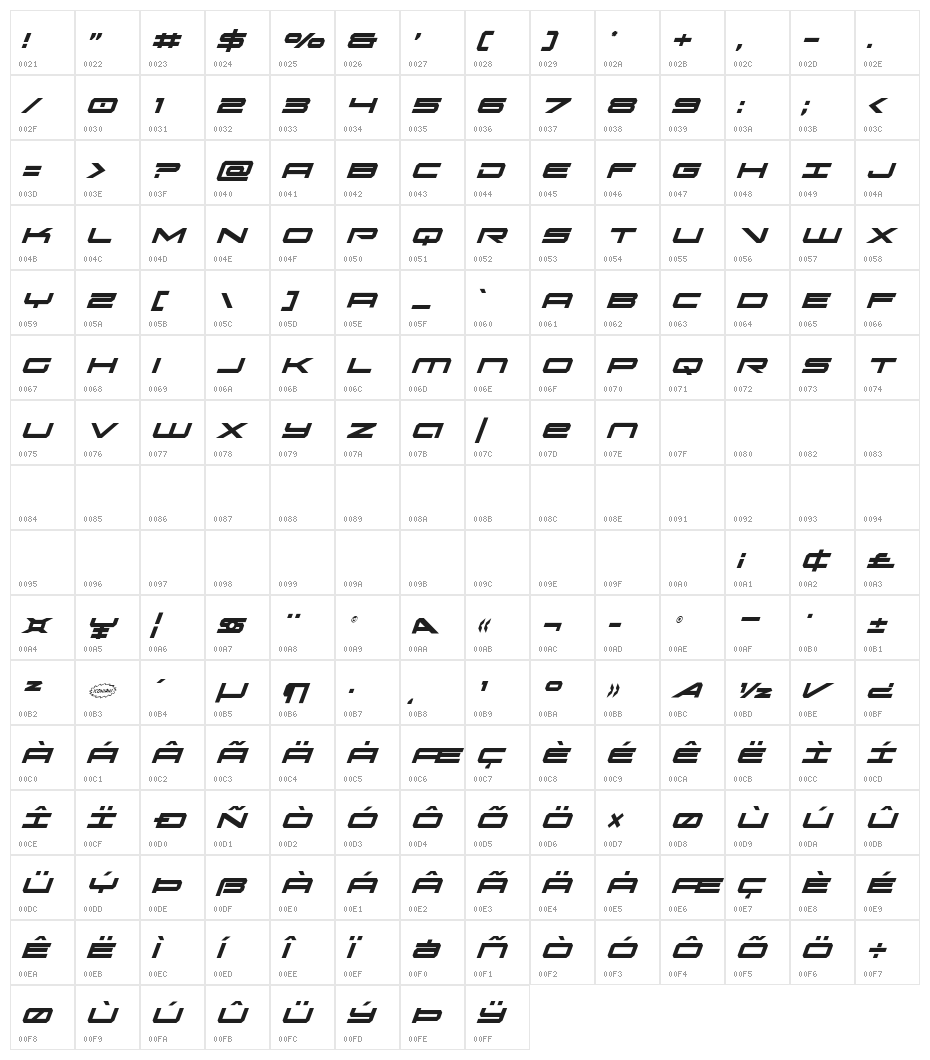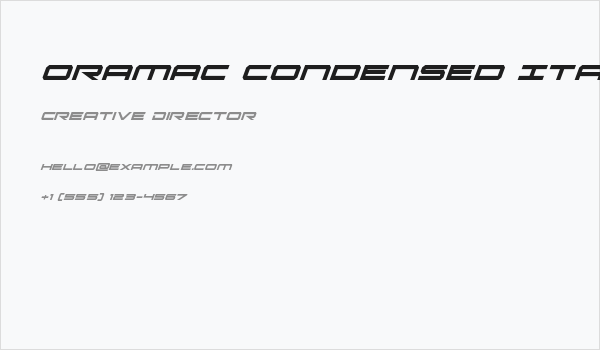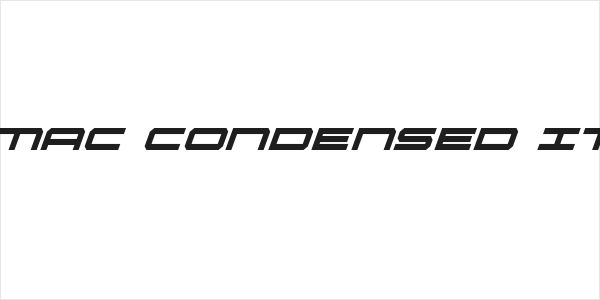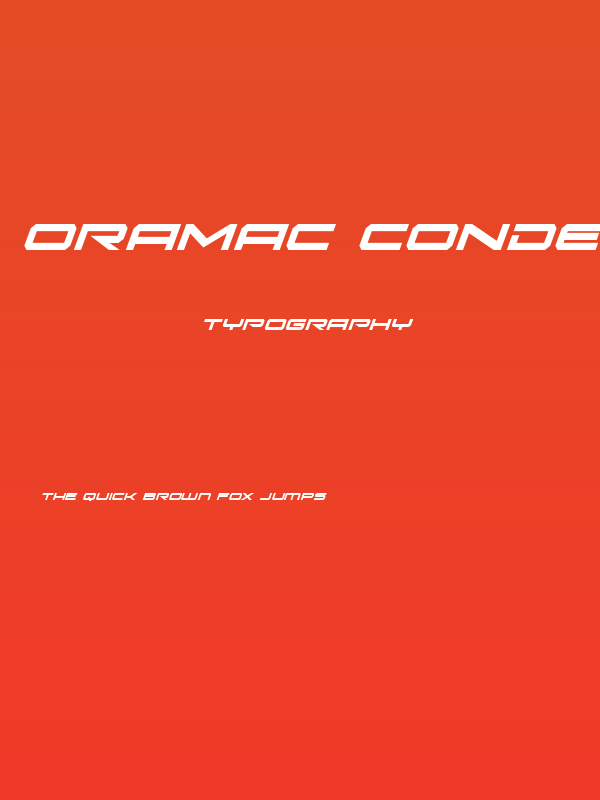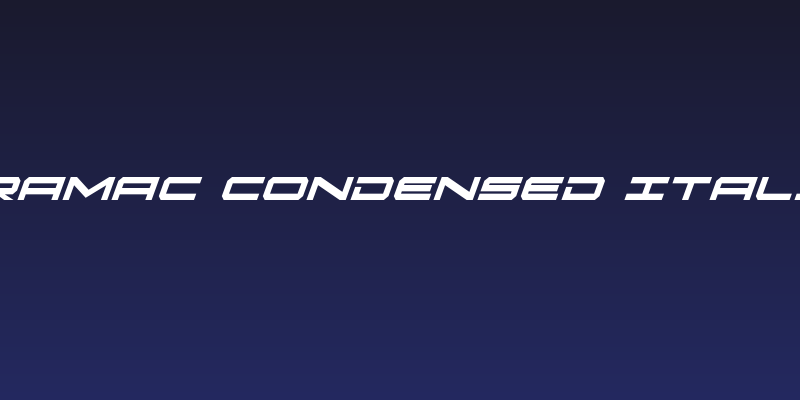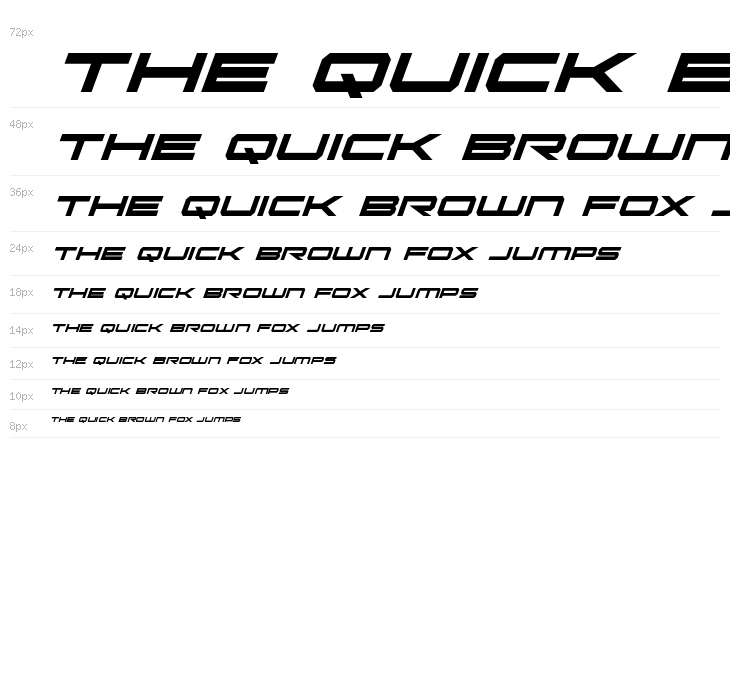
Oramac Condensed Italic Font
Oramac Condensed Italic Description
This font features a sleek, modern design with a condensed and italicized style. The characters are sharply angled, giving a sense of movement and speed. The uppercase and lowercase letters maintain a consistent slant, enhancing the dynamic appearance. The numerals and special characters follow the same aesthetic, ensuring uniformity across all glyphs. The overall look is futuristic and technical, making it suitable for projects that require a contemporary and edgy feel.
| Proposed Projects | Ideal for technology branding, sports team logos, automotive advertisements, and sci-fi themed designs. |